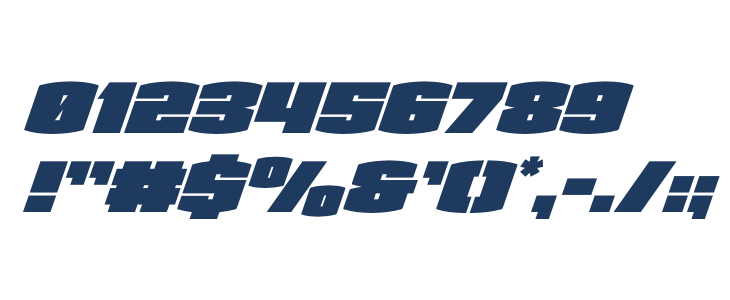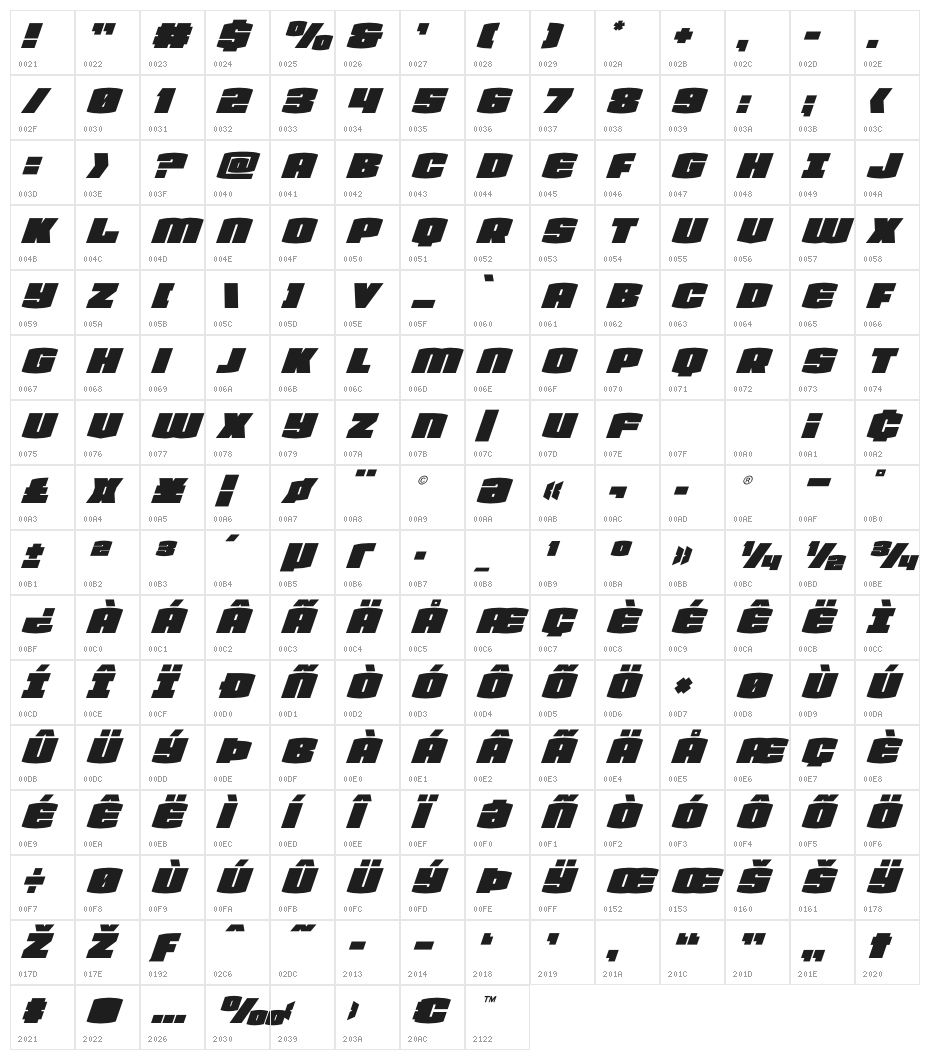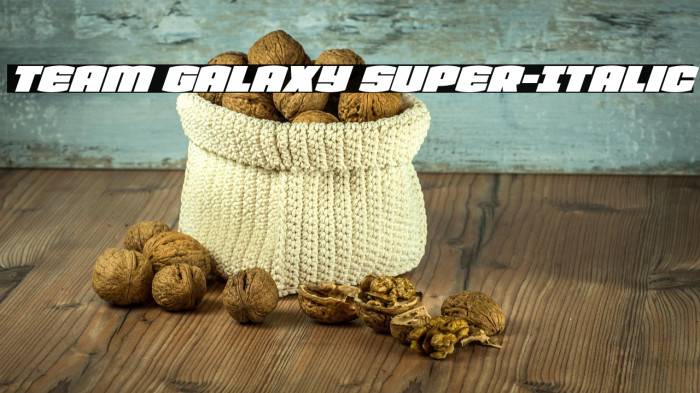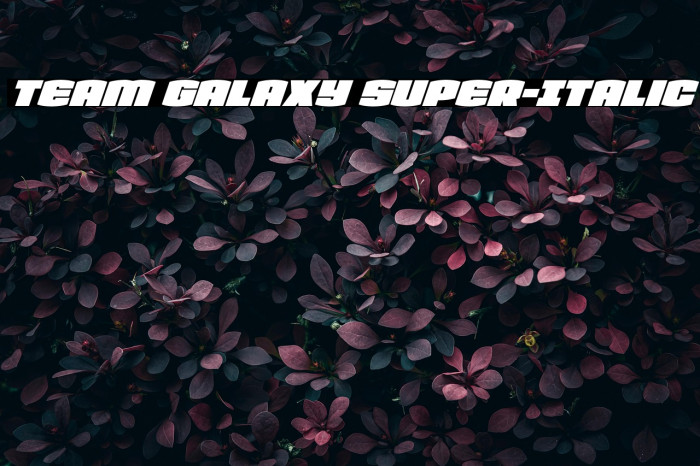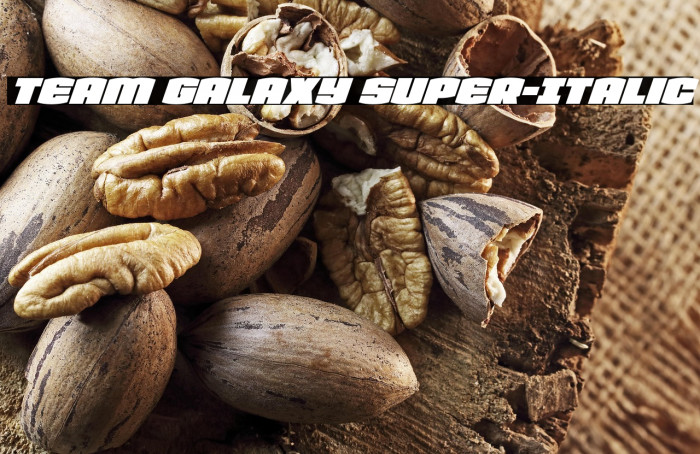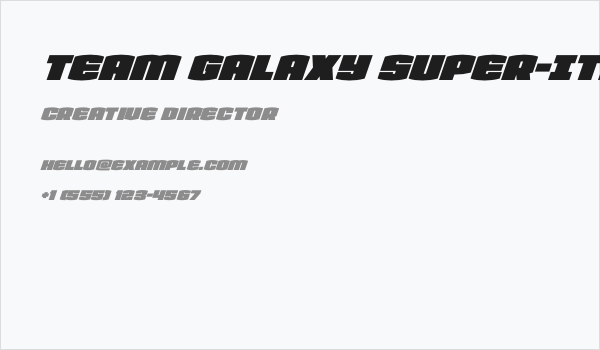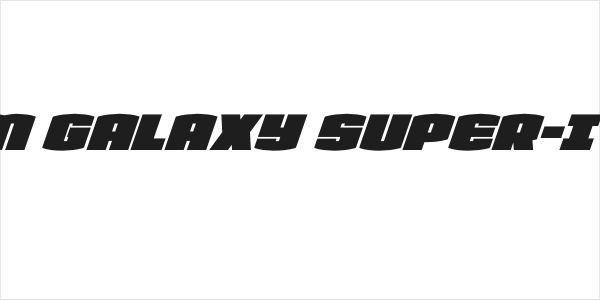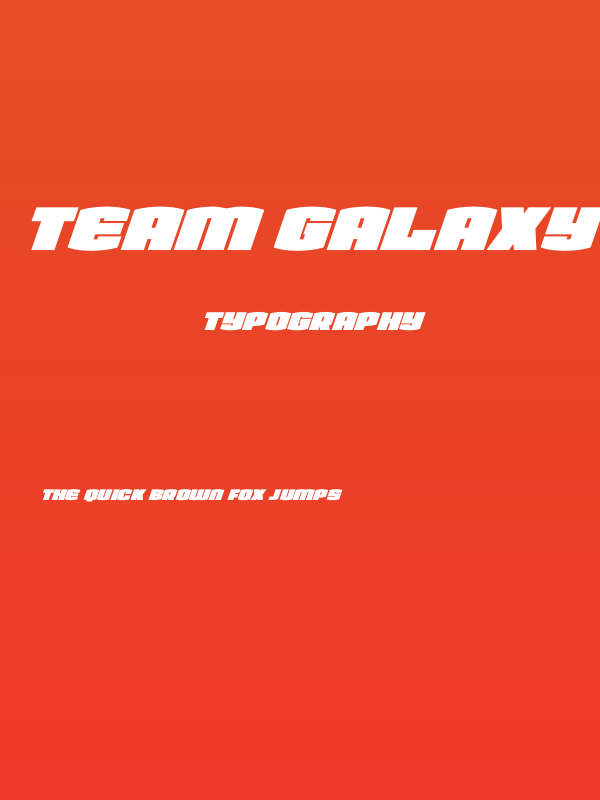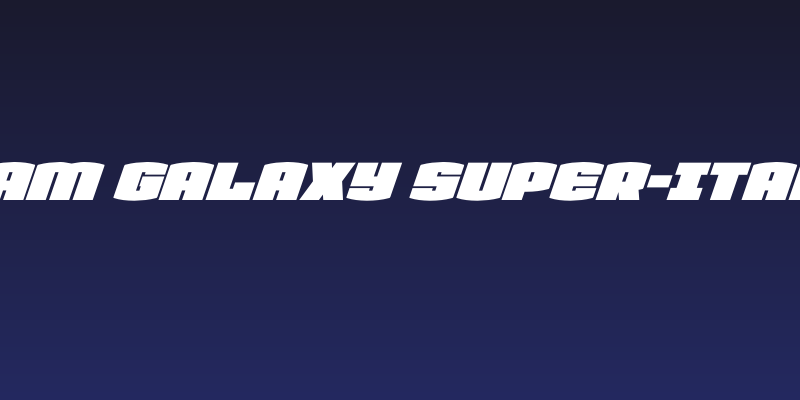
Team Galaxy Super-Italic Font
Team Galaxy Super-Italic Description
This font features a bold, italicized style with a futuristic and dynamic appearance. The characters are wide and have a strong presence, making them ideal for attention-grabbing designs. The strokes are thick, providing a high contrast that enhances readability even at a distance. The slanted design gives a sense of motion and speed, suitable for modern and energetic themes. The uppercase and lowercase letters maintain a consistent style, with the numbers and special characters complementing the overall aesthetic. This font is perfect for projects that require a bold statement and a modern touch.
Proposed ProjectsIdeal for sports branding, tech-related designs, video game titles, and dynamic posters.